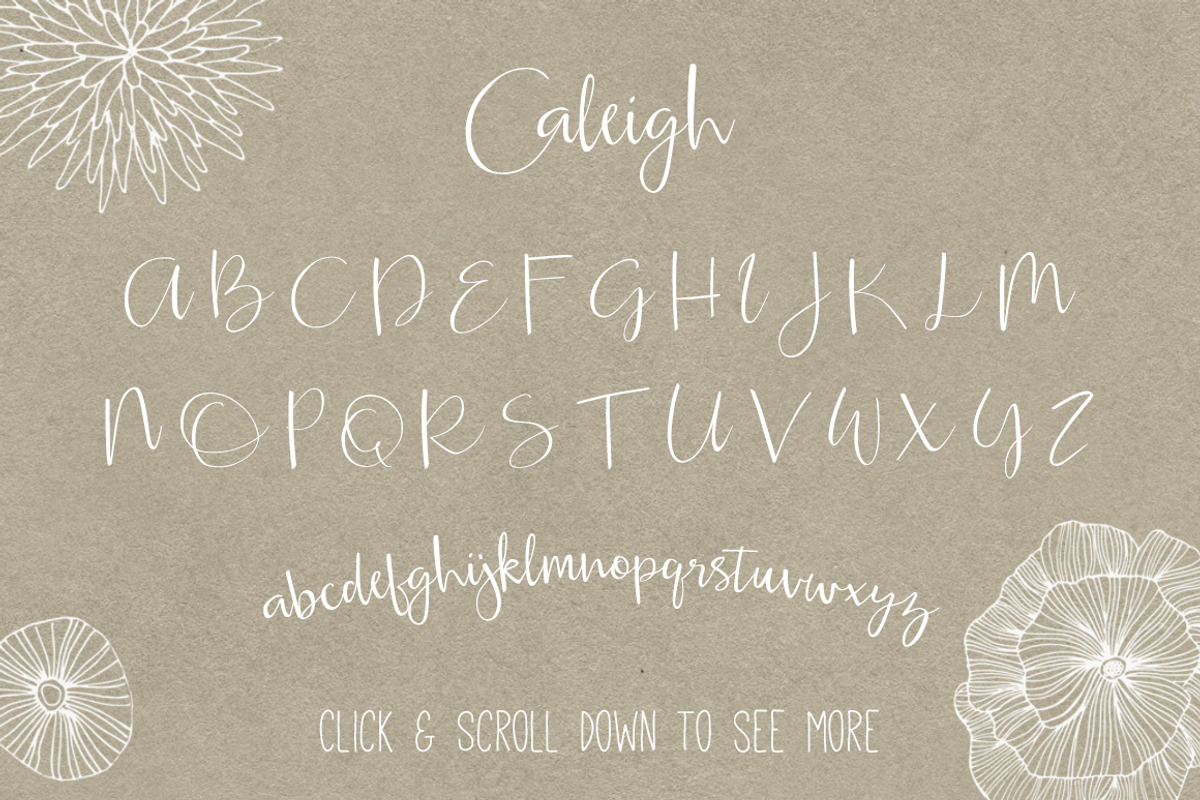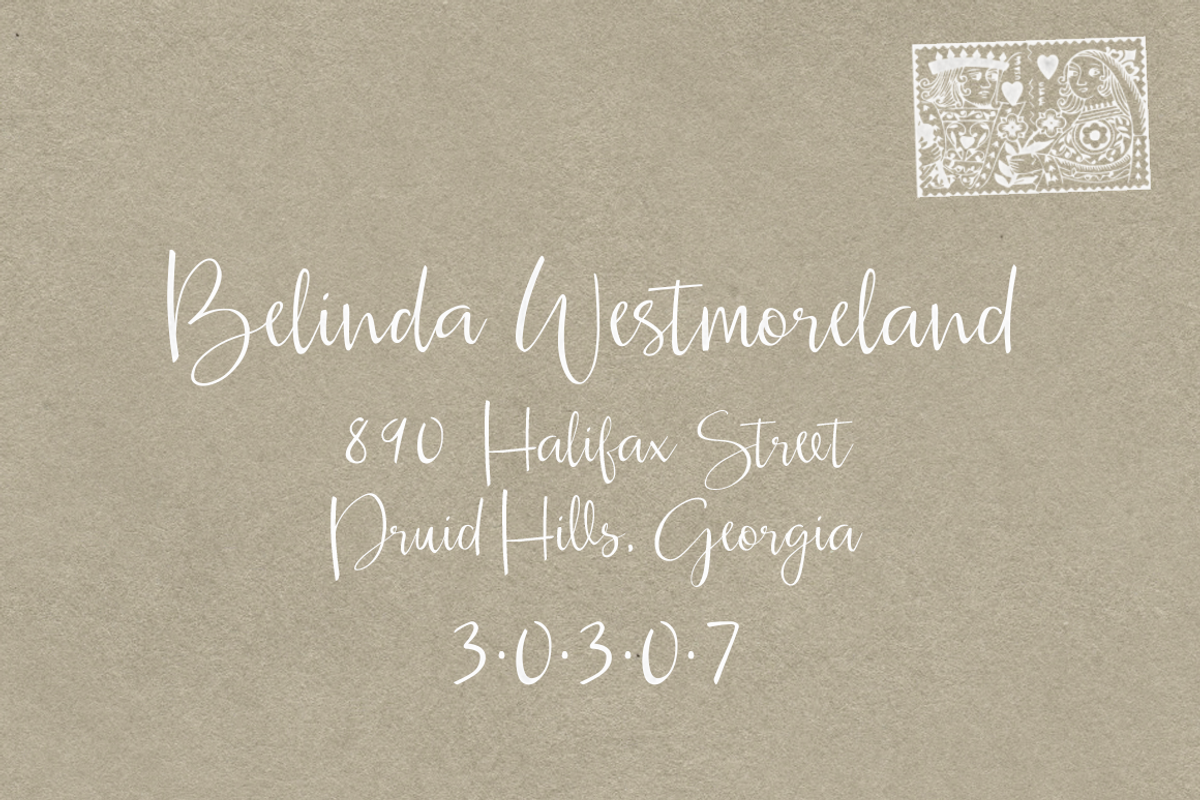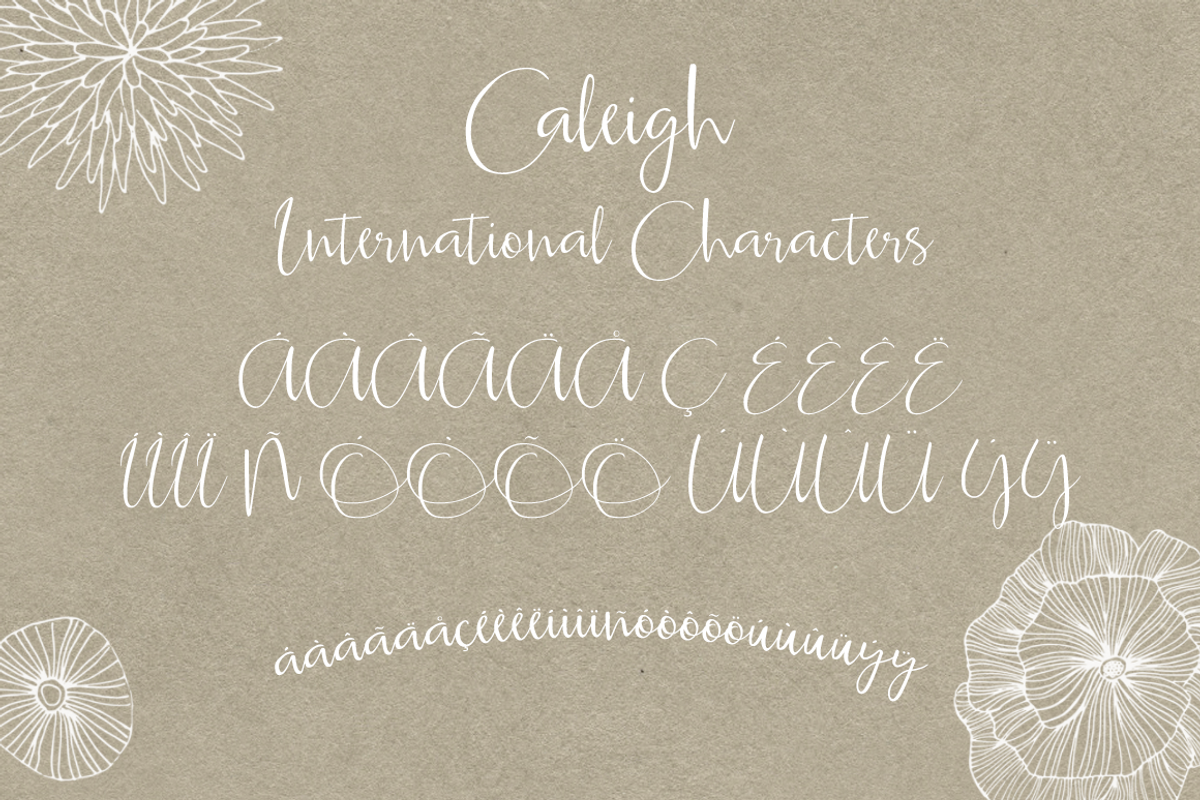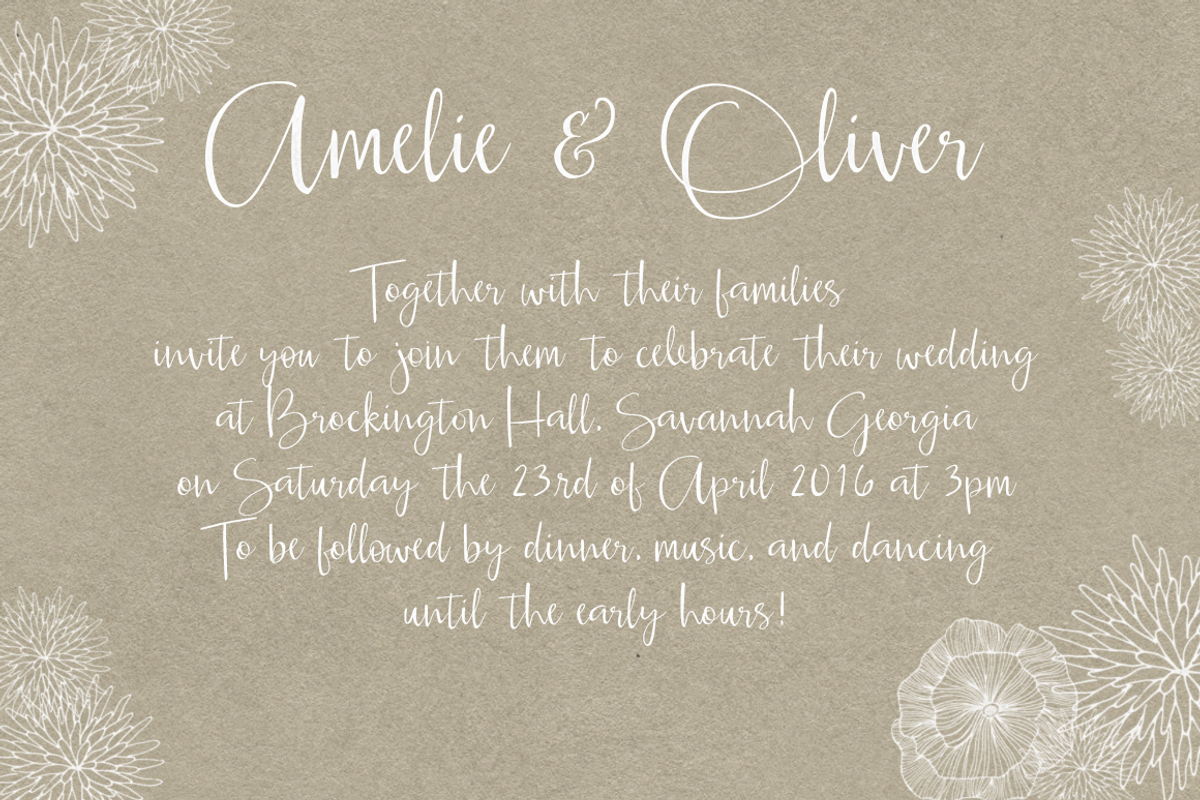
Caleigh Script Font with Bonus
Caleigh Script Font with Bonus by Seven Seas Design Co. is a font selected for branding, posters, packaging, typography.
- Caleigh is a hand-lettered modern calligraphy script font, that includes discretionary ligatures, contextual alternates, and stylistic alter
- I created this font with large, sweeping, slender capitals, and lowercase that have several alternatives.
Caleigh Script Font with Bonus by Seven Seas Design Co. fits naturally into Branding, posters, packaging, typography.